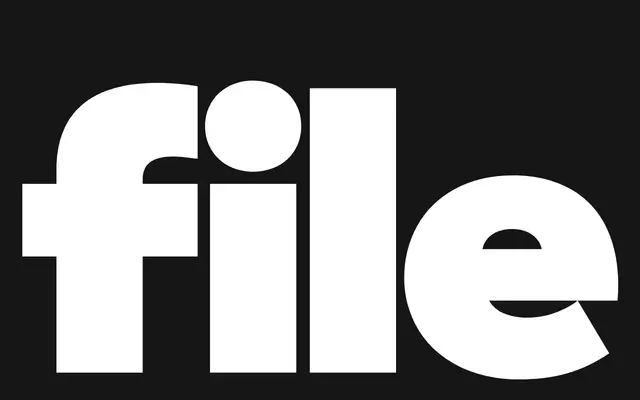
Alaska
A geometric variable sans by Ian Party spanning 240 styles across weight, width, italic and contrast axes, drawing from the Bauhaus tradition of elemental forms.
Built from circles, triangles and rectangles, the typeface follows the geometric archetype established in the 1920s and 1930s, keeping stroke contrast minimal and widths even across the family. A single variable font covers four axes simultaneously, with 240 static styles also available in OTF, TTF and WOFF2. Latin coverage is broad, spanning over 80 languages including African and European scripts.
Built from circles, triangles and rectangles in the tradition of Bauhaus-era geometric sans serifs; the variable axes cover weight, width, italic and contrast, keeping stroke contrast low and forms highly constructed throughout.